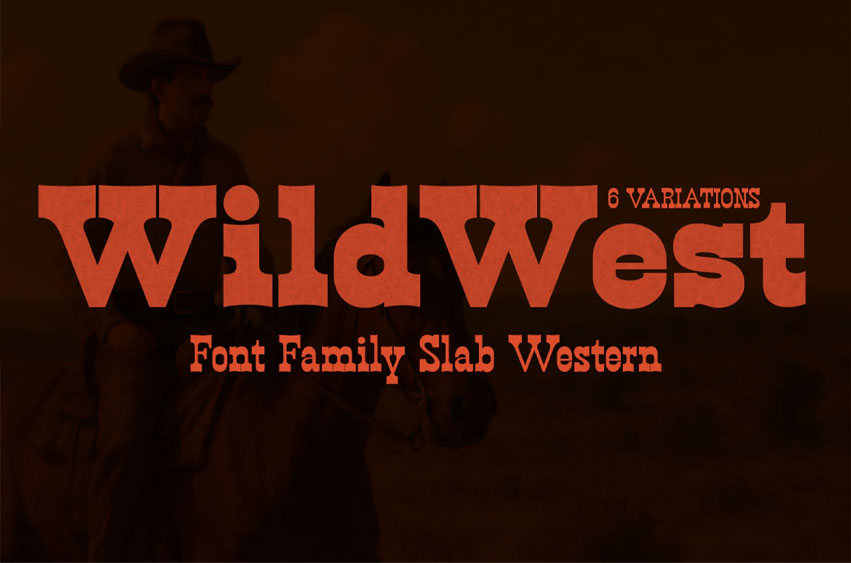
Wild West Family Font
Wild West Family Font is a bold vintage western typeface family crafted to capture the rugged charm and iconic spirit of the Old West. Designed with strong serifs, engraved details, and classic frontier character, this font brings authentic western vibes to any design project.
With 6 distinct styles, Wild West offers complete versatility—ranging from clean to textured, shadowed, and expanded variations. Each style is carefully crafted to give your typography a powerful presence, whether you’re creating branding, posters, signage, packaging, event titles, or themed designs with a classic Americana touch.
Perfect for cowboy-themed branding, saloon-style titles, rodeo posters, or vintage display work, Wild West delivers a timeless western aesthetic that stands out with strength and personality.
• Classic western serif construction.
• Vintage handcrafted details.
• Uppercase & lowercase.
• Numbers, punctuation & symbols.
• Multilingual support.
Ideal for logos, posters, signage, merchandise, and display design Bring the frontier spirit to your creative projects with Wild West — a full-featured western font family built for bold, unforgettable typography.